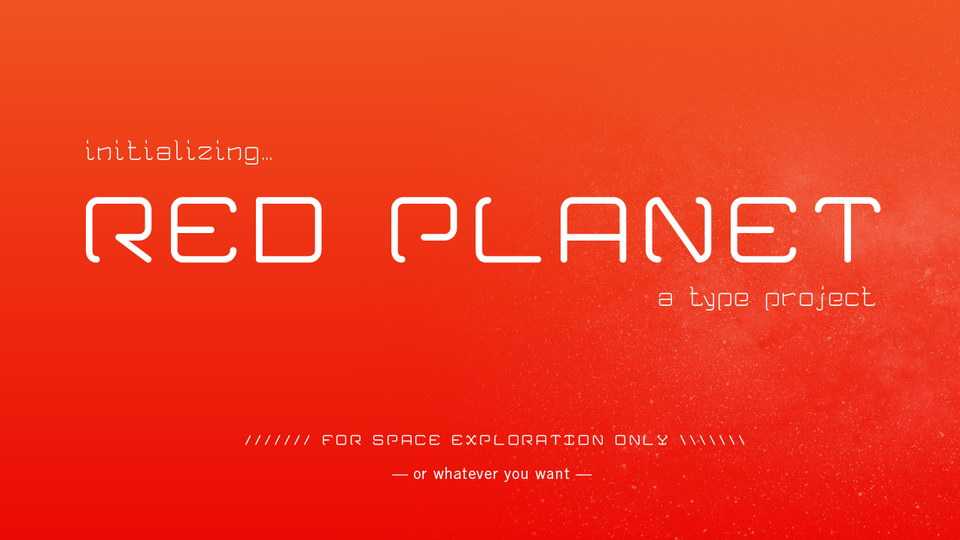
Download Red Planet font family, a futuristic display typeface in Regular and Bold weights. Red Planet font perfectly fits for posters and headlines, techno and sci-fi designs, banners flyers and more.
Designer: Jaron Jackson